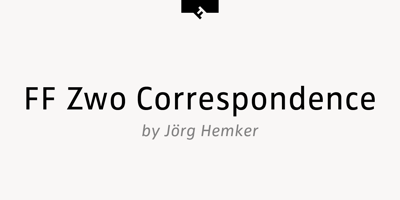
FF Zwo Correspondence Font Family was designed by Henning Krause, Jörg Hemker and published by FontFont. FF Zwo Correspondence contains 4 styles and family package options. German type designer Jörg Hemker created this sans FontFont in 2002. The family contains 4 weights: Regular, Italic, Bold, and Bold Italic and is ideally suited for logo, branding, small text, software and gaming as well as web and screen design. FF Zwo Correspondence provides advanced typographical support with features such as ligatures, alternate characters, case-sensitive forms, fractions, super- and subscript characters, and stylistic alternates. It comes with tabular lining and proportional lining figures. This FontFont is a member of the FF Zwo super family, which also includes FF Zwo.